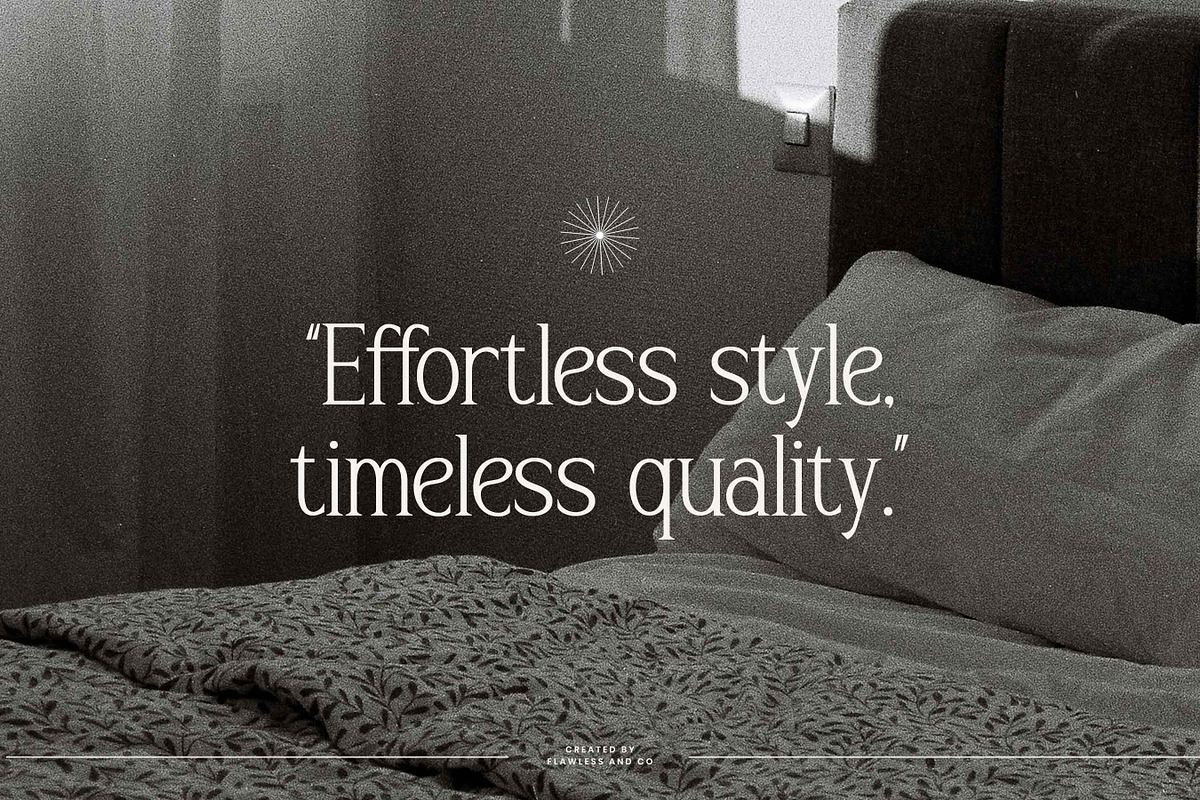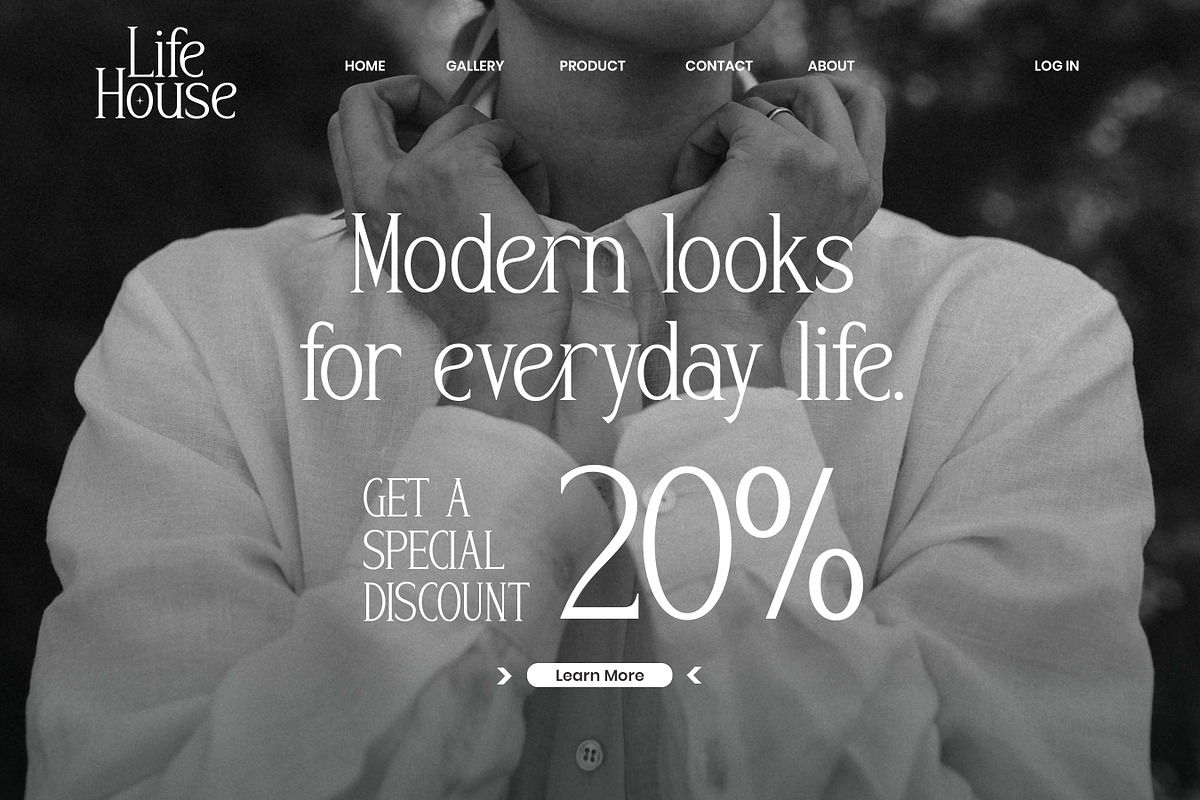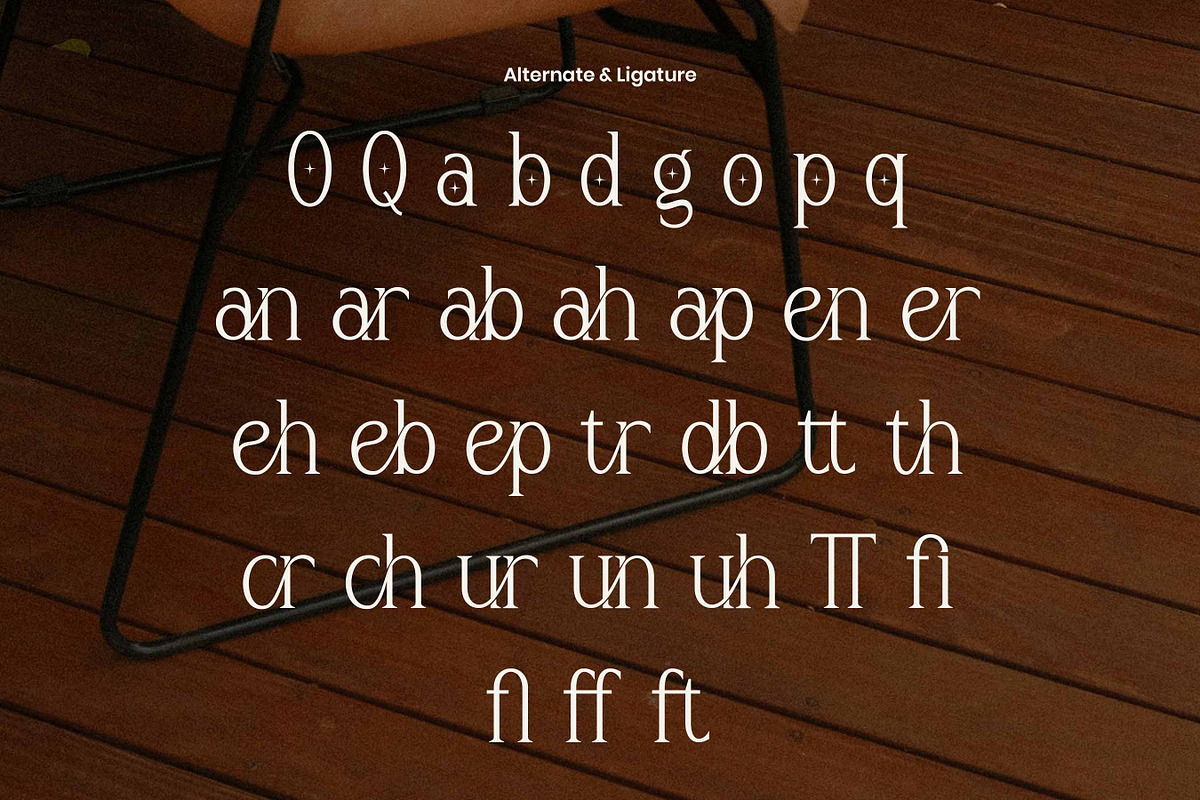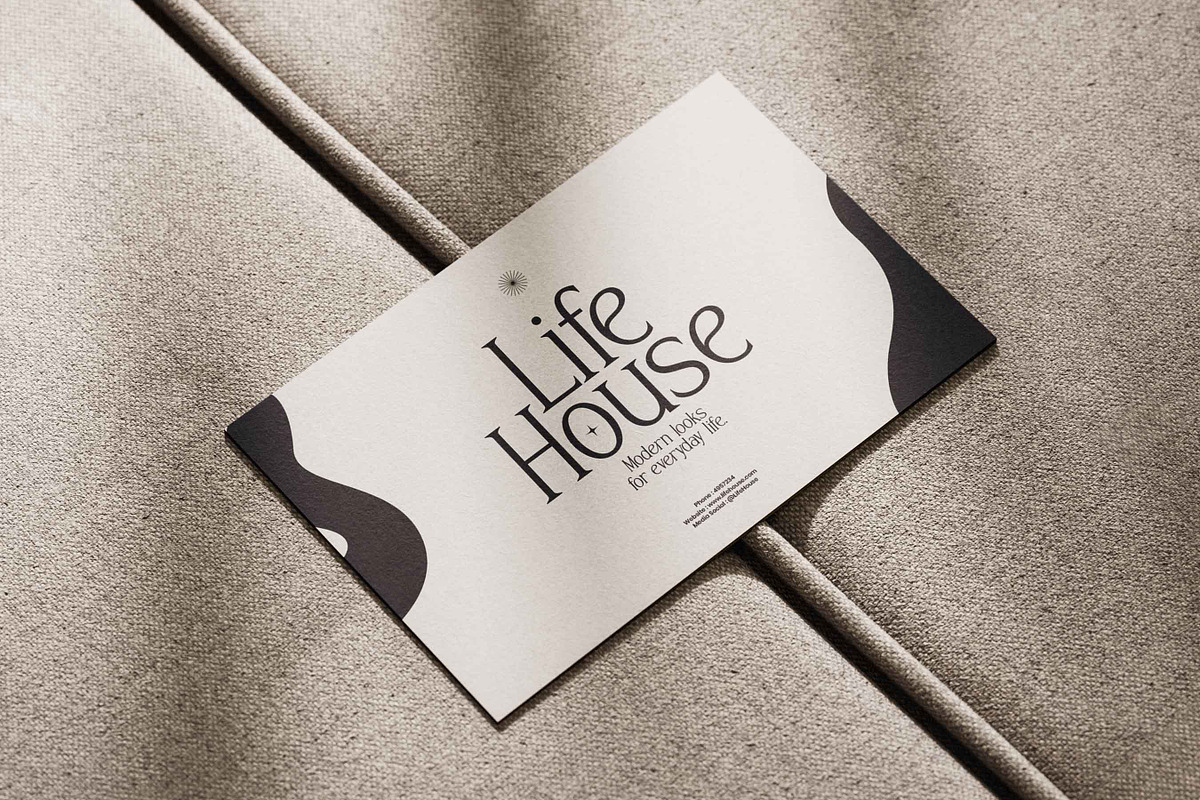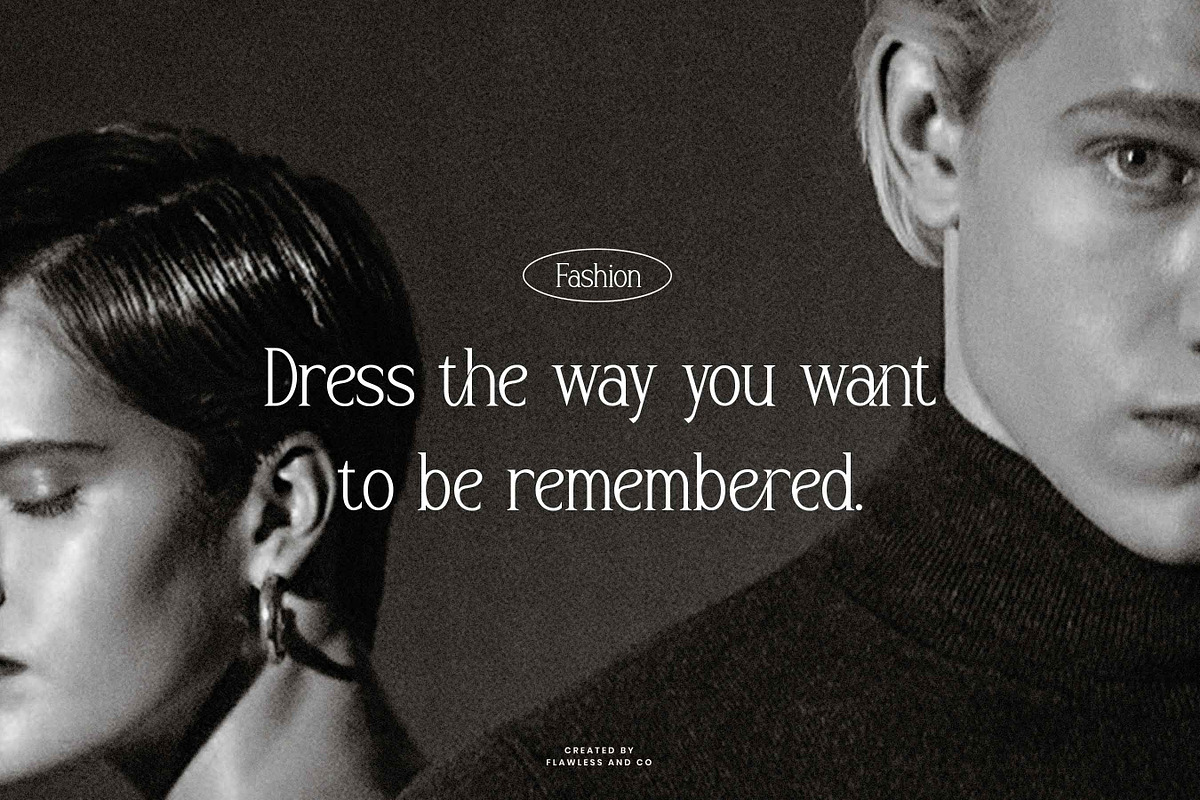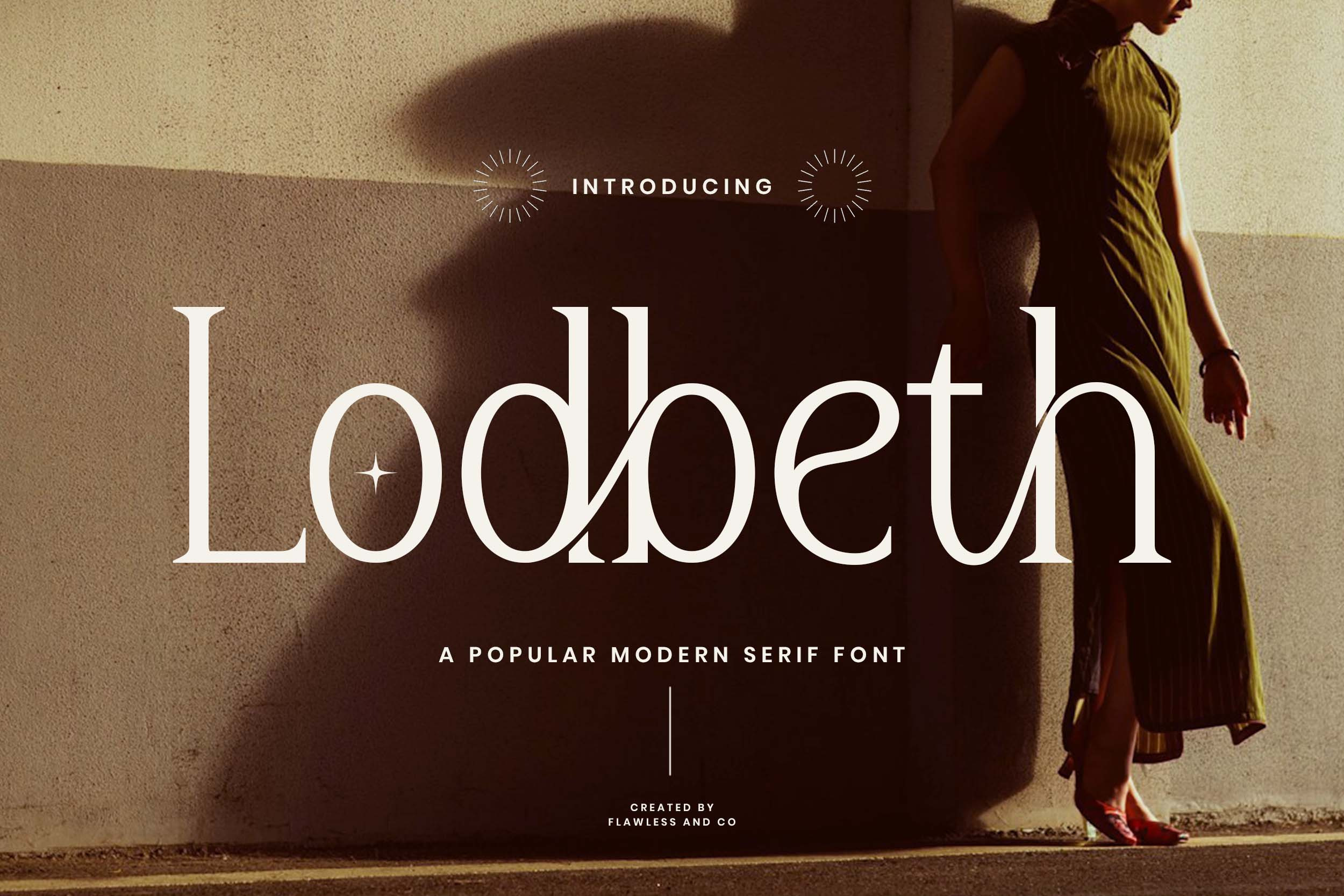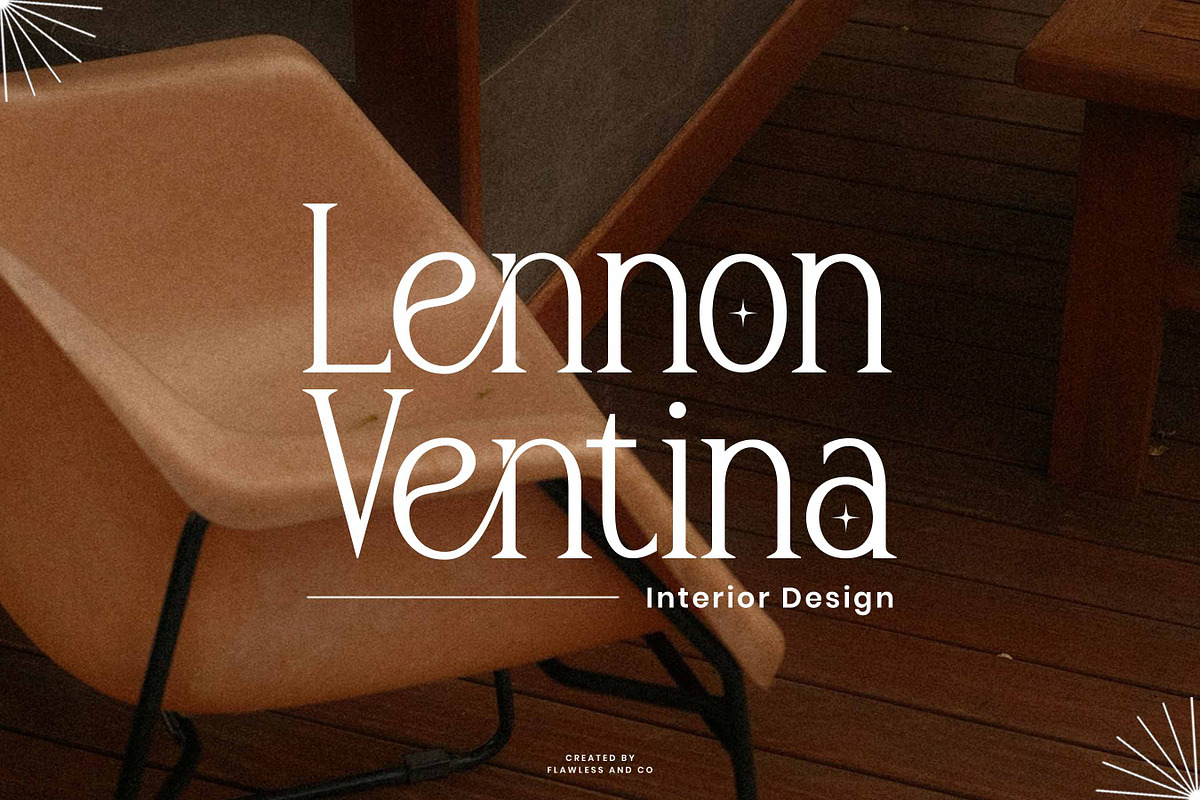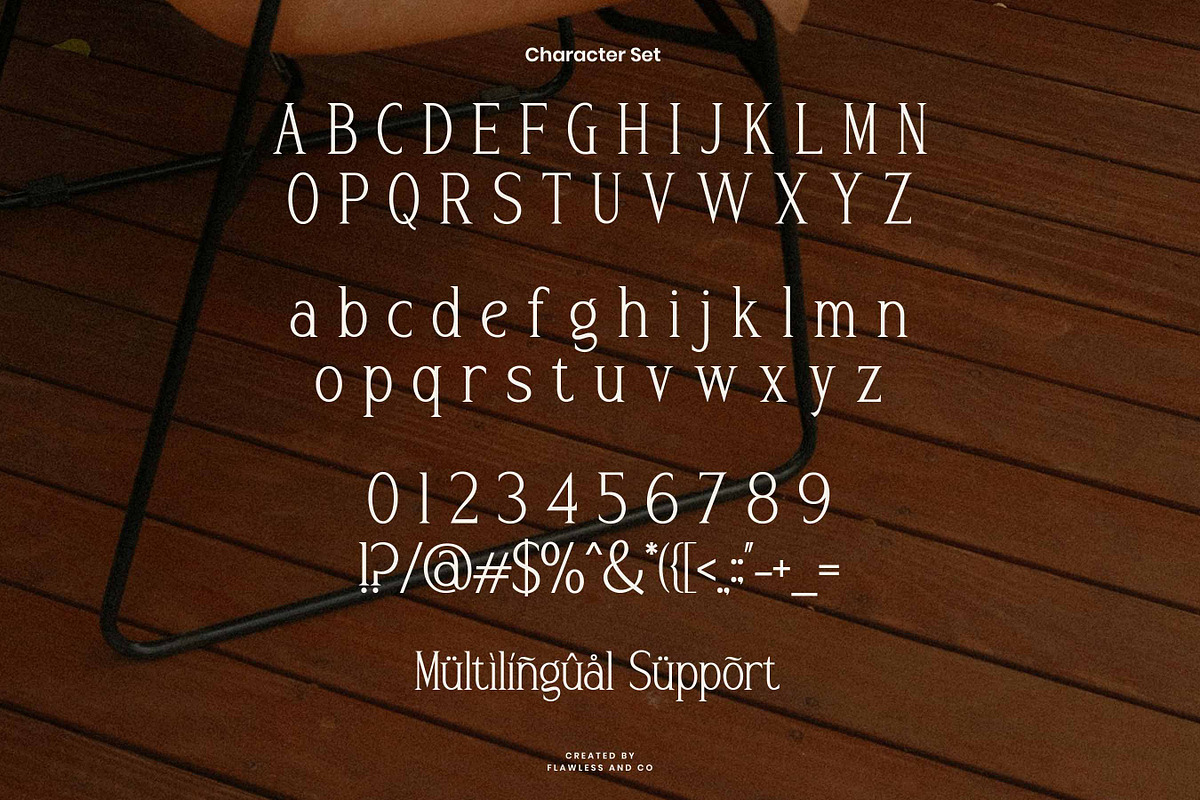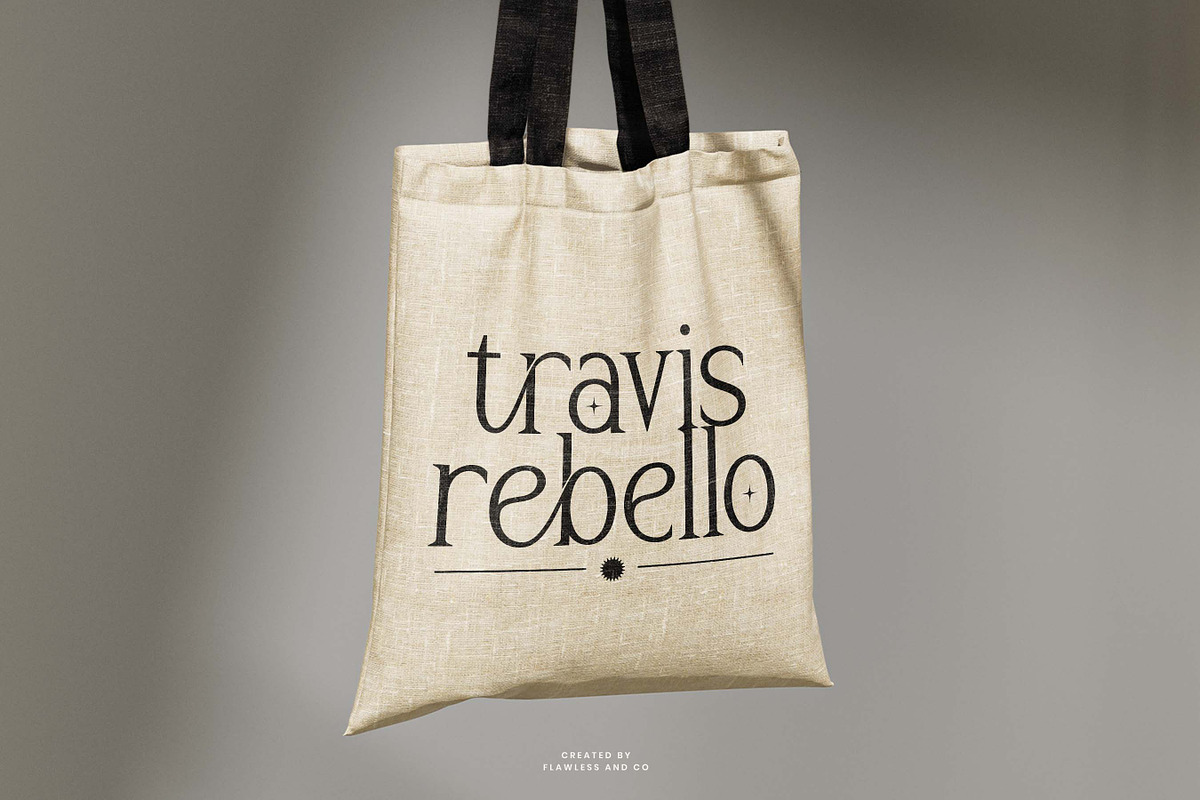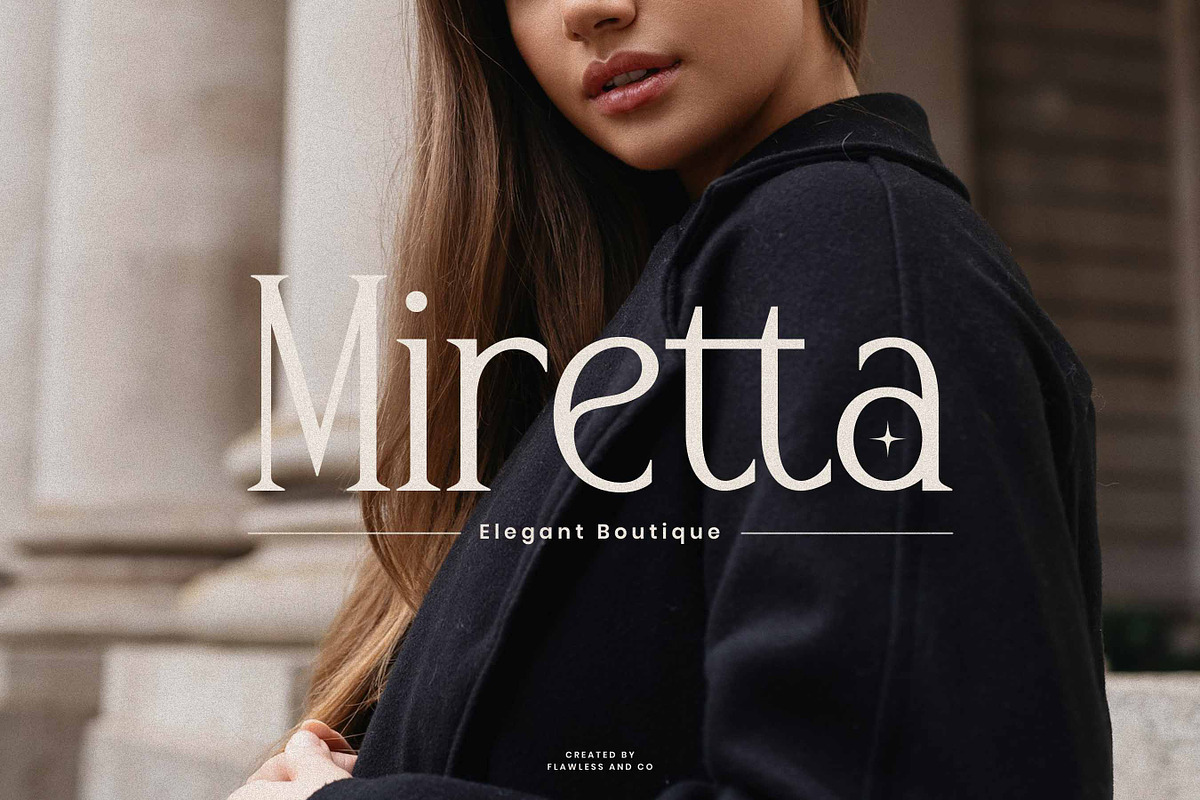
Lodbeth - Modern Serif Font
Lodbeth features a harmonious contrast of thick and thin strokes, refined letterforms, and modern serif details that retain a strong personality. Each character is carefully crafted to deliver a polished and aesthetic look—whether used in large headlines or smaller text sizes. Elevate your design projects with Lodbeth, a modern serif font that blends timeless elegance with clean, contemporary flair. Designed to evoke a premium and sophisticated feel, this font is perfect for luxury branding, fashion editorials, minimalist logos, and upscale product packaging.
- High-end branding & logos
- Editorial layouts & fashion magazines
- Cosmetic & perfume packaging
- Wedding invitations & stationery
- Typography posters & quotes
- Numerals & punctuation
- Ligatures & stylistic alternates
Who Should Use Lodbeth?
Lodbeth is perfect for designers, creatives, and brands looking to bring a sense of refined sophistication into their visual identity. Whether you're crafting high-end editorial content, designing luxury packaging, or building an elegant brand presence, Lodbeth delivers the balance of style and clarity that today’s modern aesthetics demand.
Ideal for: Branding agencies focused on premium clients
- Fashion designers & editorial teams
- Packaging designers in beauty and lifestyle sectors
- Wedding and event creatives
- Content creators needing a classy typographic presence
If your project calls for timeless elegance with a modern edge—Lodbeth is your go-to font.
A Must-Have Font for Brand and Logo Creators and Designers
Lodbeth offers the perfect blend of elegance and clarity, making it an essential choice for anyone working in brand development, logo design, or visual storytelling. Its modern serif character brings both uniqueness and professionalism to any identity project.
Why Choose Lodbeth for Brand and Logo Projects?
Lodbeth strikes the perfect balance between timeless sophistication and modern edge. Its refined serif details, stylish contrast, and versatile letterforms make it ideal for creating memorable, upscale brand identities. Whether you're designing for fashion, beauty, editorial, or premium packaging, Lodbeth delivers a distinctive and professional look that elevates every logo and branding application.
Suitable for:
Luxury branding, logo design, editorial layouts, fashion campaigns, beauty packaging, wedding invitations, typography posters, and any creative project that demands a refined, modern serif with timeless appeal. Lodbeth brings elegance, clarity, and visual impact to both digital and print designs.